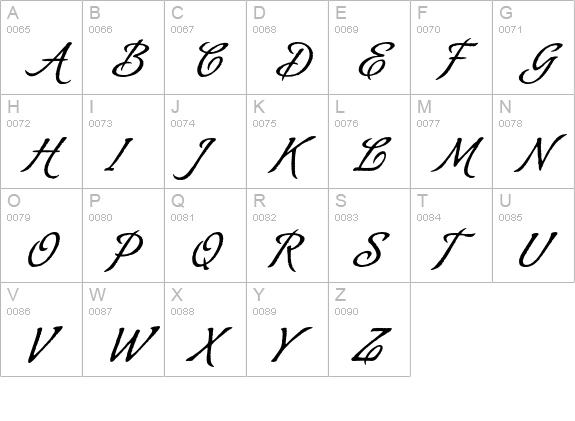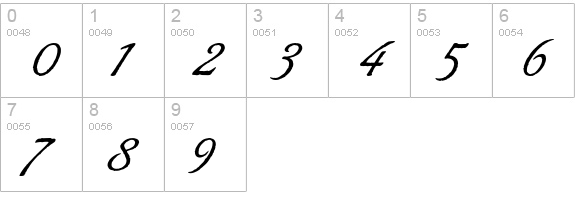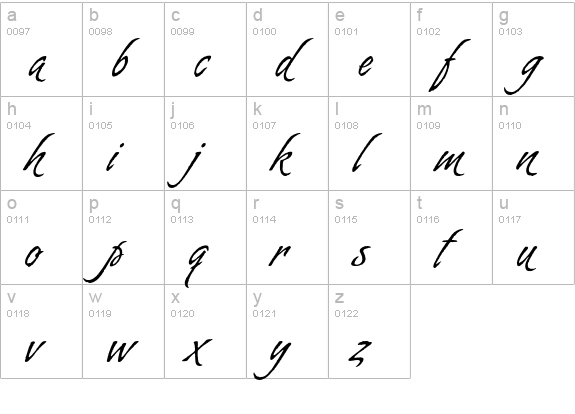
Almond Script Font Details
Introducing Almond Script font, a beautifully handcrafted typeface that exudes elegance and sophistication. With its delicate strokes and graceful curves, Almond Script adds a touch of charm to any design project. Whether you're creating wedding invitations, branding materials, or social media graphics, this versatile font is sure to make a statement. What's even better is that Almond Script is available for free download at FontsMarket.com! Yes, you read that right - this stunning font can be yours at no cost, allowing you to elevate your designs without breaking the bank. Don't miss out on the opportunity to add Almond Script to your font collection and bring a touch of luxury to your projects. Download it now and let your creativity flourish with this exquisite typeface.